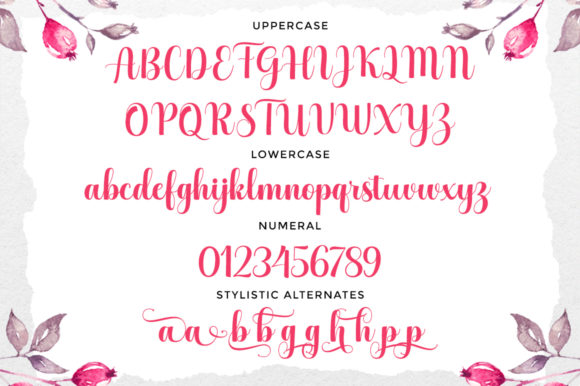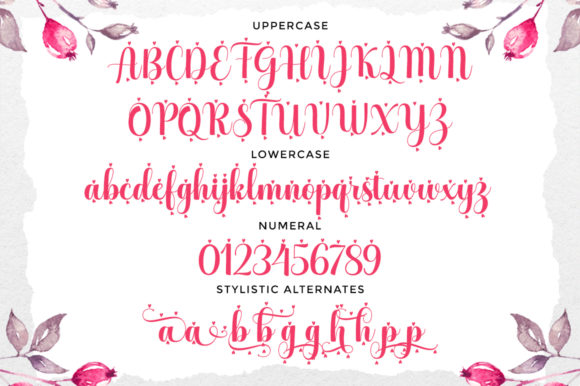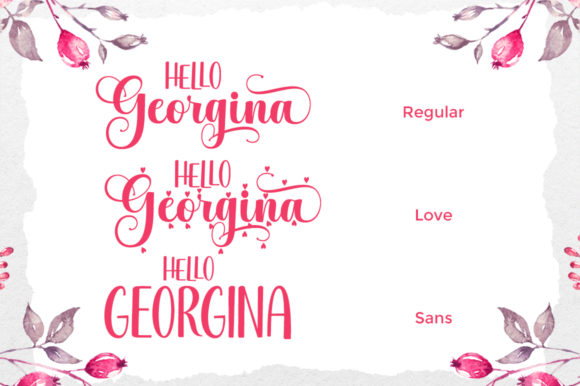
The Perfect Handwritten Touch: Unveiling the Magic of Hello Georgina Font
There’s something special about a handwritten note, isn’t there? The way it conveys a personal touch, a sense of warmth and thoughtfulness. It’s the little details like these that make a design truly stand out. As designers, we’re always on the lookout for that perfect font that captures the essence of our message. And that’s where Hello Georgina Font comes in – a lovely and jolly duo font that combines the elegance of script with the simplicity of sans serif.
With its varying baseline, smooth lines, gorgeous glyphs, and stunning alternates, Hello Georgina Font is the ultimate go-to for designers who want to add a handwritten touch to their designs. Whether it’s a wedding invitation, a thank you card, or a logo, this font is sure to make your design shine. Its versatility and charm make it an invaluable asset for any designer looking to add a personal touch to their work.
- Unique Characteristics: The font features a unique, elegant, and modern design with a touch of sophistication, making it suitable for a wide range of applications, including corporate branding, publishing, and advertising.
Designer Review: Hello Georgina Font
At first glance, Hello Georgina Font seems to be a sweet and charming font, perfect for those who love a vintage vibe ✨. The font’s unique characteristics and playful feel can add a lot of personality to any design project. I particularly love how the font’s weight and spacing can be adjusted to create a range of moods and tones.
However, I do have some concerns about the font’s limitations ⚠️. For one, the font’s readability can be a bit of an issue, especially at smaller font sizes. Additionally, the font’s consistency can be inconsistent at times, with some letters appearing more distorted than others.
Here are some of the font’s key features:
- Playful and charming feel
- Unique and vintage-inspired design
- Adjustable weight and spacing
- Perfect for creative and whimsical designs
Overall, I would say that Hello Georgina Font is a solid choice for designers who are looking for a fun and playful font to add some personality to their designs. However, it may not be the best choice for projects that require high levels of readability or consistency.
Tips for Getting the Most Out of “Hello Georgina Font”
Use “Hello Georgina Font” for creative and playful designs, such as invitations, greeting cards, and social media graphics.
Pair “Hello Georgina Font” with bold, bright colors to create a fun and eye-catching design.
Experiment with different font sizes and styles to add visual interest to your design.
“Hello Georgina Font” is ideal for:
Invitations and greeting cards
Social media graphics and advertisements
Wedding and event design
Alternatives to Hello Georgina Font for Designers
Great Vibes Font is a modern, elegant script font. It’s perfect for creating a sophisticated and stylish look in branding materials, wedding invitations, and other creative projects. Compared to Hello Georgina Font, Great Vibes Font has a more refined and polished feel, making it ideal for high-end designs.
Pacifico Font is a beautiful, cursive font with a relaxed and casual vibe. It’s great for creating a friendly and approachable atmosphere in designs such as logos, brochures, and social media graphics. While Hello Georgina Font has a more playful feel, Pacifico Font is more laid-back and perfect for designs that require a sense of calmness.
What is the recommended font size for Hello Georgina?
The recommended font size for Hello Georgina is between 12pt and 24pt. This will ensure that the font is legible and visually appealing. However, the optimal font size may vary depending on the specific design context and the intended use of the font.